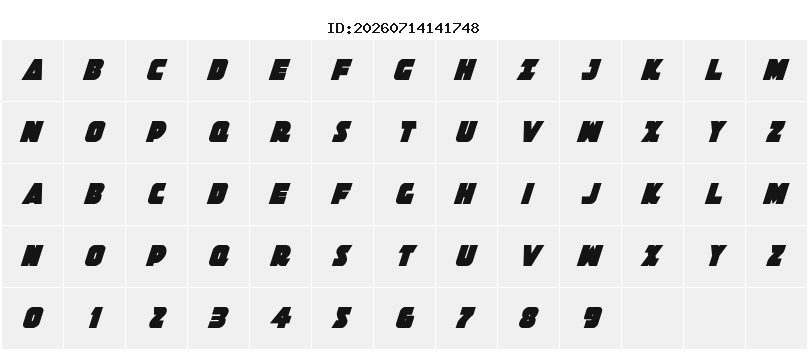
Jedi Special Forces Condensed Italic Preview
• Font Name: Jedi Special Forces Condensed Italic
• Font Style: Condensed Italic
• Full Font Name: Jedi Special Forces Condensed Italic
About Jedi Special Forces Condensed Italic.ttf
Jedi Special Forces Condensed Italic.ttf is a modern, elegant sans-serif font designed for ultimate readability and visual harmony. Perfect for branding, headlines, web design, and print materials.